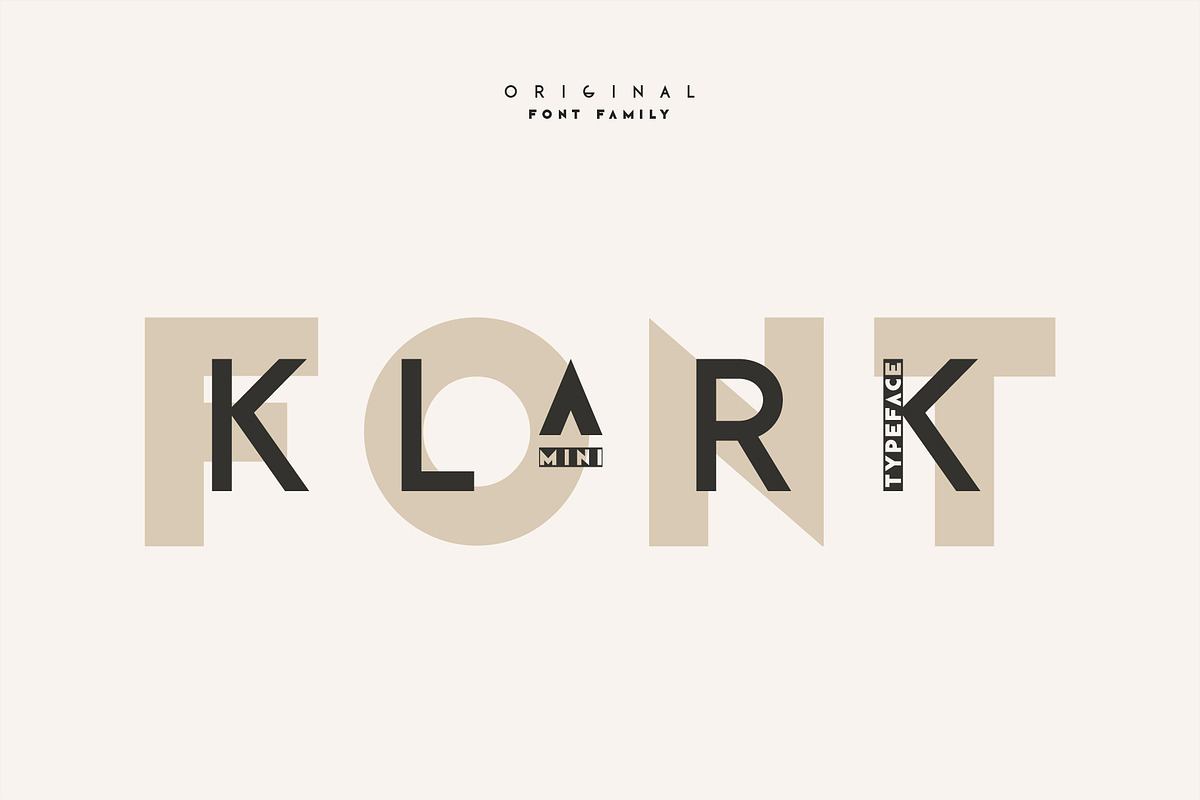
Klark Sans Serif Font Family Free Download is a sleek and modern sans-serif typeface family designed with versatility and clarity in mind. Featuring multiple weights and styles, Klark is perfect for a wide range of design projects, from branding and logos to web design, editorial layouts, and packaging.
The clean, geometric shapes and balanced proportions make it ideal for both print and digital applications. Whether you're creating minimalist designs or bold, high-impact visuals, Klark provides the flexibility to suit various styles while maintaining readability and sophistication.